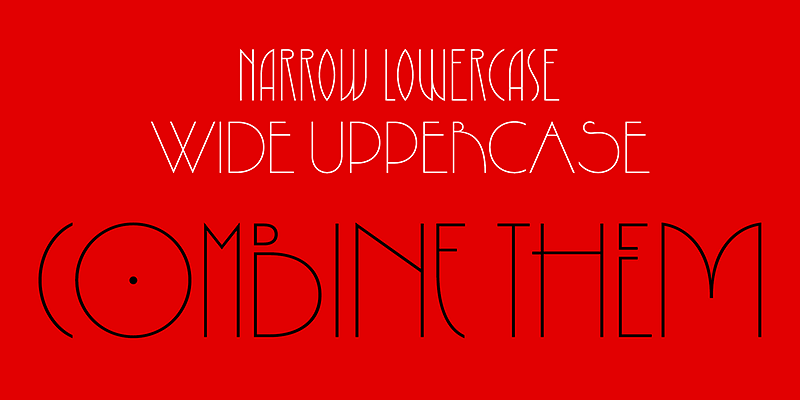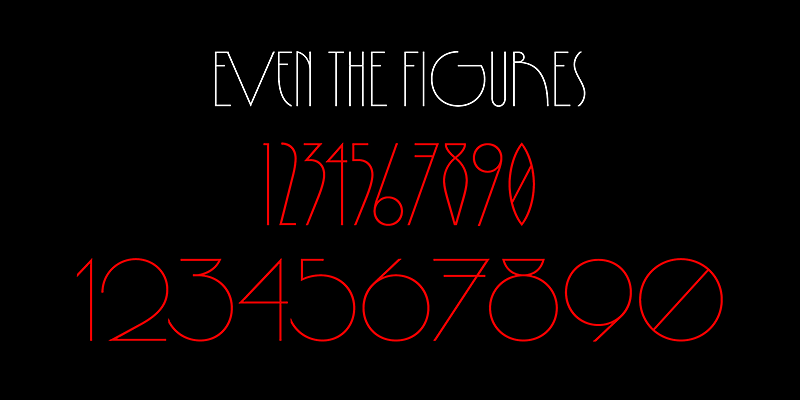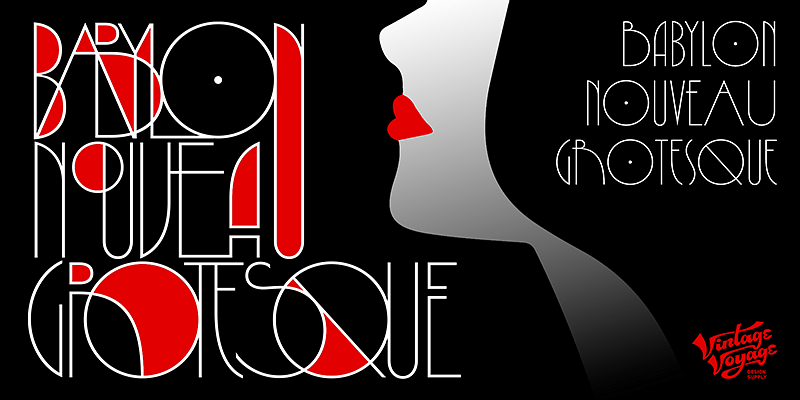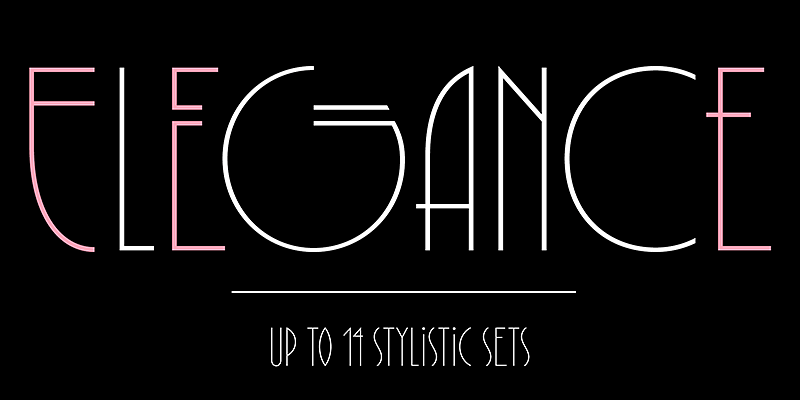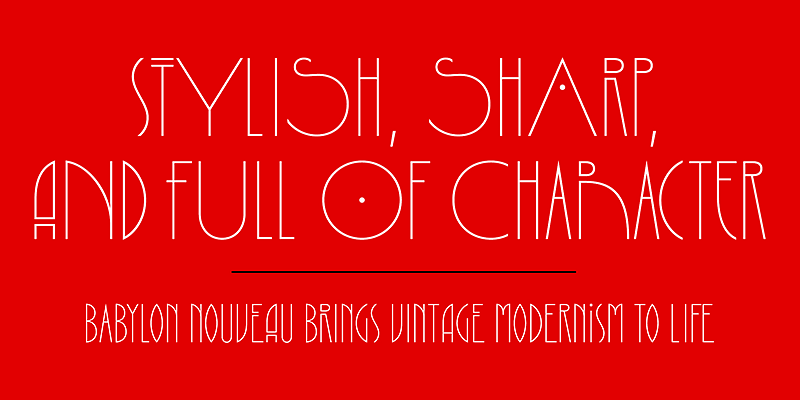
Babylon Nouveau is an Art Deco sans serif embracing modernity. This typeface is a striking balance of minimalism and geometry, elevating any typography with its strong architectural forms. Its all-caps, single-weight structure is deceptively simple—unexpected alternates unlock a treasure trove of stylistic possibilities: book covers, film titles, house numbers, wedding invitations, theater posters, food packaging, and media brands. Babylon Nouveau thrives anywhere bold elegance is required.